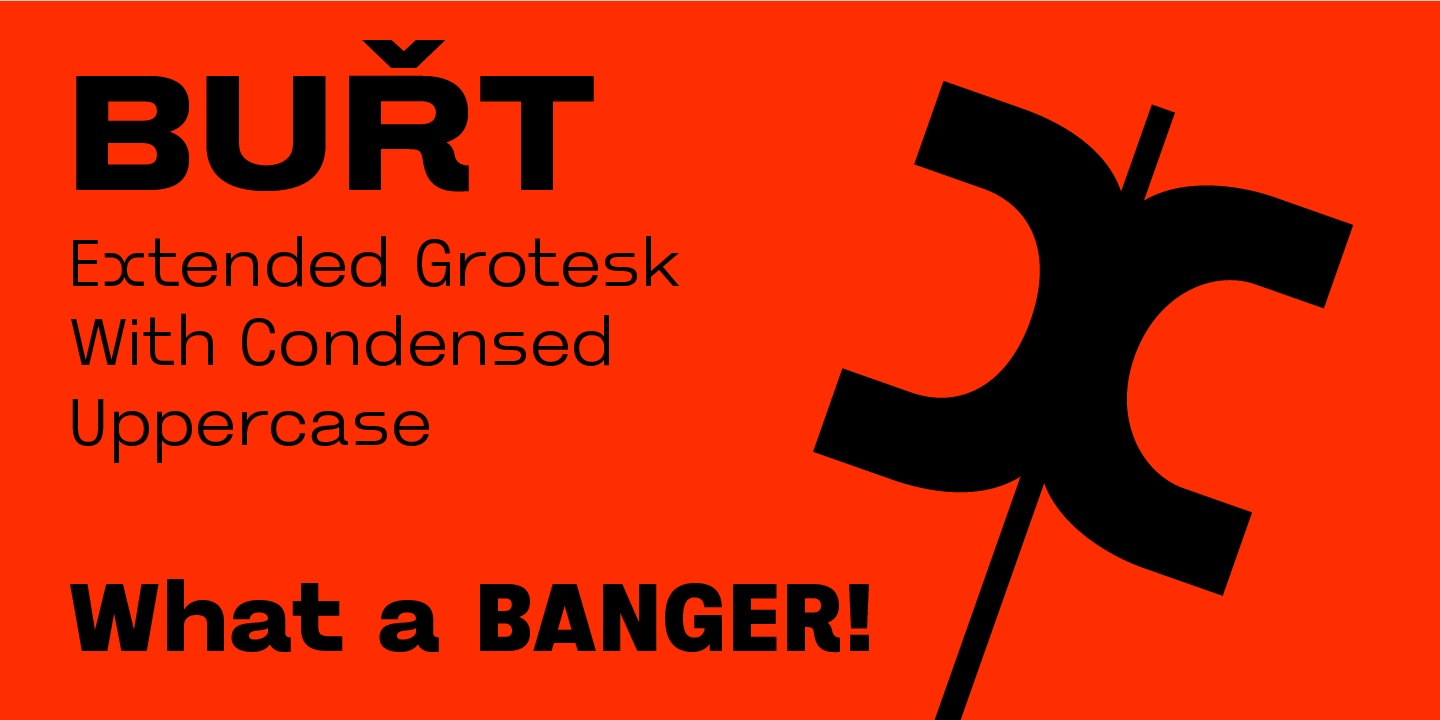
Burt Font
This versatile typeface is perfect for branding, logos, posters, and website headers, offering a modern yet timeless aesthetic.
Burt Font excites designers with its bold, clean lines and unique geometric structure, making it ideal for creating eye-catching visuals.
The Burt Font family includes Regular, Bold, Italic, and Condensed variants, providing flexibility for diverse design needs.
If you’re searching for a typeface that combines elegance with functionality, Burt Font Free Download is an excellent choice. This font stands out in the crowded world of typography due to its distinct personality and adaptability. Whether you're designing a sleek business card or a vibrant digital banner, Burt Font delivers a professional touch. Its geometric shapes and balanced proportions ensure readability while adding a contemporary flair to your projects.
For graphic designers, Burt Font is a go-to option for creating memorable logos and marketing materials. Its clean design works well in both print and digital formats, making it a favorite for web developers and content creators. The font’s versatility extends to social media graphics, where its bold weights grab attention, and its lighter variants maintain sophistication.
The excitement around Burt Font lies in its ability to transform ordinary designs into extraordinary ones. Its modern yet approachable style makes it suitable for industries like tech, fashion, and advertising. The font’s unique letterforms add a touch of creativity, ensuring your work stands out without overwhelming the viewer.
With its multiple weights and styles, the Burt Font family offers endless possibilities. The Regular style is perfect for body text, while the Bold and Condensed variants shine in headlines and compact spaces. The Italic version adds a dynamic flair for emphasis or creative accents.